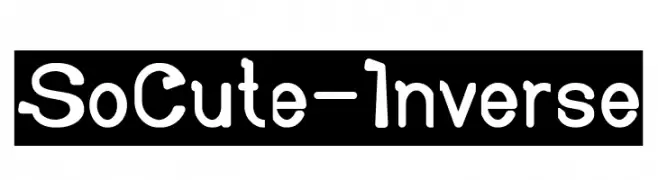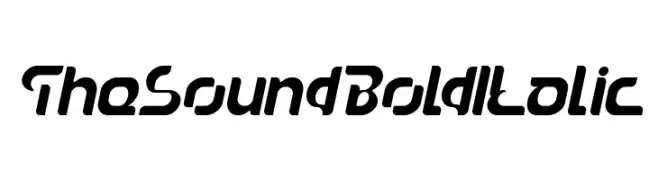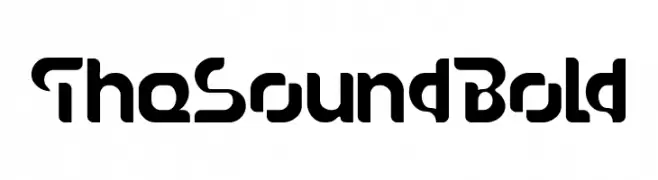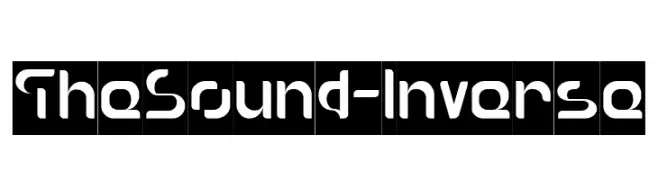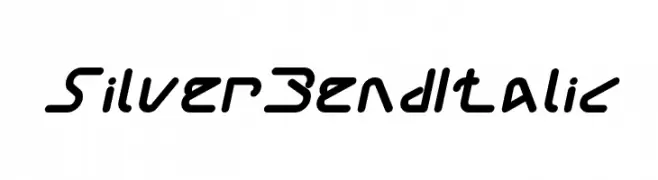
A playful and whimsical font with rounded and angular elements, perfect for creative projects.
A playful, bold, and italicized typeface with rounded edges and a friendly appearance.
A bold, italicized font with a modern, dynamic style and strong visual impact.
A modern, italic font with a bold, futuristic style.
A bold, modern font with rounded edges and a futuristic style.
A bold, geometric font with a futuristic and modern design.
A futuristic, geometric font with rounded edges and consistent line thickness.
A bold, futuristic font with rounded edges and geometric shapes.
A bold, futuristic italic font with rounded strokes and dynamic curves.
A bold, italicized font with a modern, futuristic look and rounded edges.